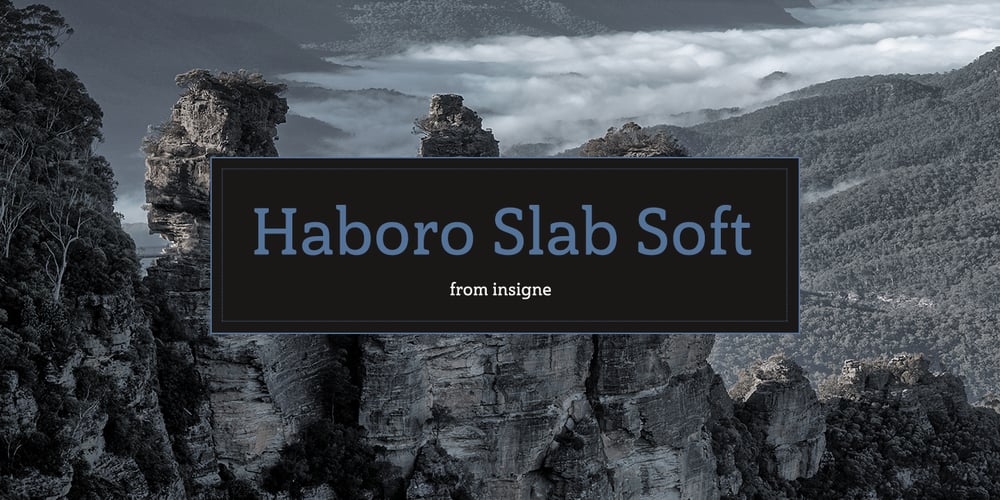
Haboro Slab Soft
Haboro Slab Soft font
Haboro Slab Soft Font Family was designed by Jeremy Dooley and published by insigne. Haboro Slab Soft contains 42 styles and family package options. Haboro Slab Soft is a scion of the Haboro hyperfamily. This concept powers through with its well built, accommodating nature. Haboro Slab Soft’s serifs are rounded, giving it a softer look.The Haboro hyperfamily is a comprehensive design suite that provides solutions for many projects. The iconic angled wedge makes this family ideal for apparel, packaging, apps, corporate identities and advertising campaigns. Subfamilies in the hyperfamily include the original Haboro, a Didone face, Haboro Sans, Serif, Soft, and Slab. The Haboro hyperfamily is known for its ability to make your copy appear clear and simple. The Haboro typeface is built on a common underlying model. It has the same cap height, the same x-height, and the same basic character shape. This unification of shape and proportion results in a complementary set of typefaces.Haboro Slab Soft’s wide variety of ligatures and OpenType alternatives give your message the clarity it deserves. The Haboro Slab Soft family includes seven weights, from Thin to ExBold, three widths, and matching italics. There are over 550 glyphs per style and support for over 70 Latin-based languages. Haboro Slab Soft includes features such as small caps, ligatures, fractions, and alternatives.Haboro Slab Soft is there when you need to present information in a clear and friendly fashion.